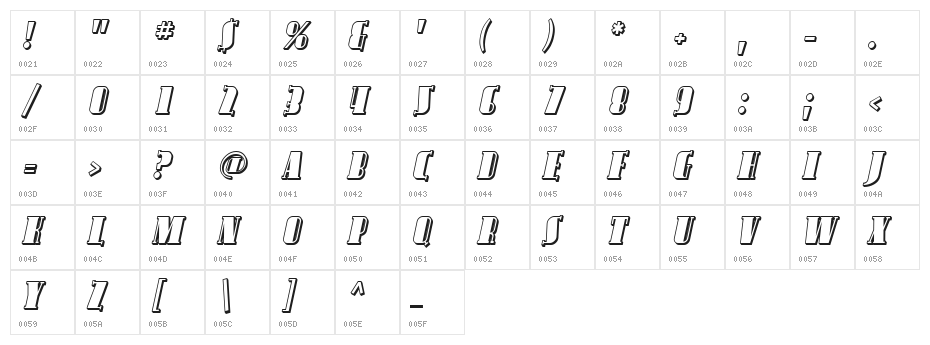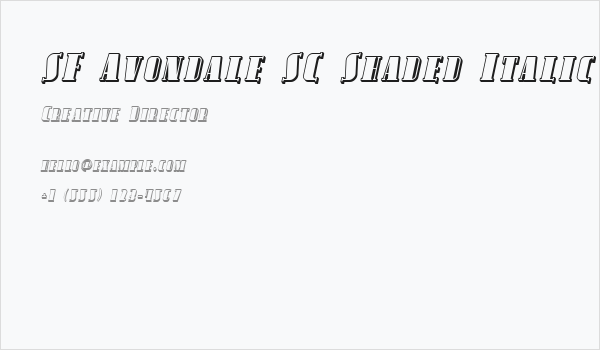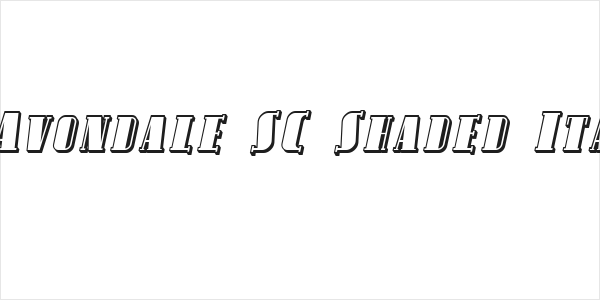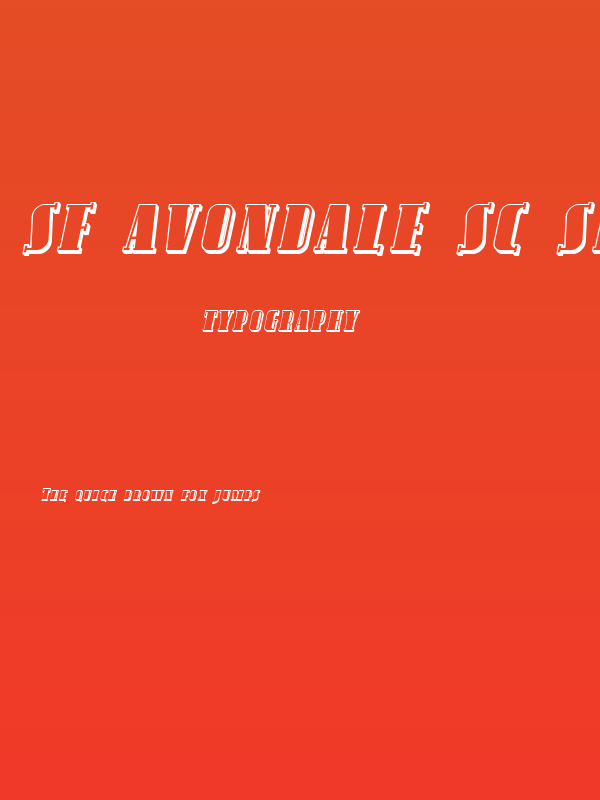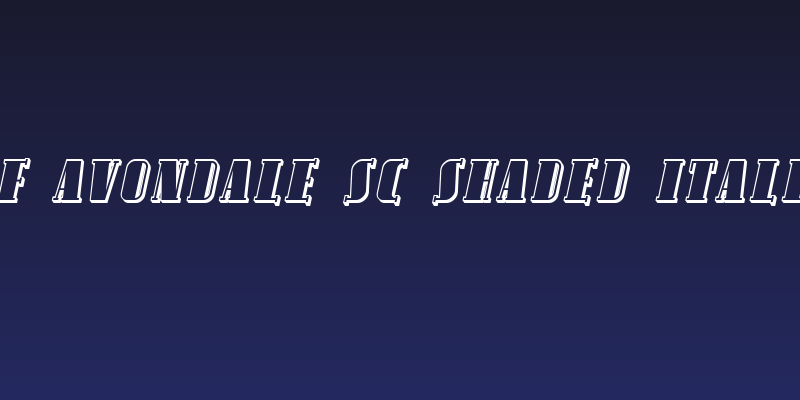
SF Avondale SC Shaded Italic Font
SF Avondale SC Shaded Italic Description
This font features a bold and dynamic style with a distinct italic slant, giving it a sense of movement and energy. The characters are shaded, adding depth and a three-dimensional effect that enhances its visual appeal. The uppercase and lowercase letters maintain a consistent design, with sharp angles and clean lines that create a modern and sophisticated look. The numerals and special characters are equally well-crafted, ensuring uniformity across all elements. This font's unique style makes it suitable for projects that require a strong and impactful visual presence.